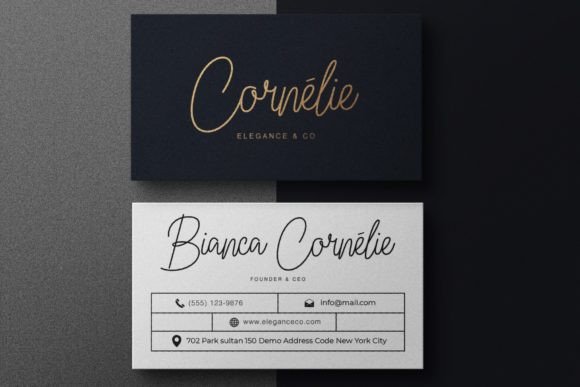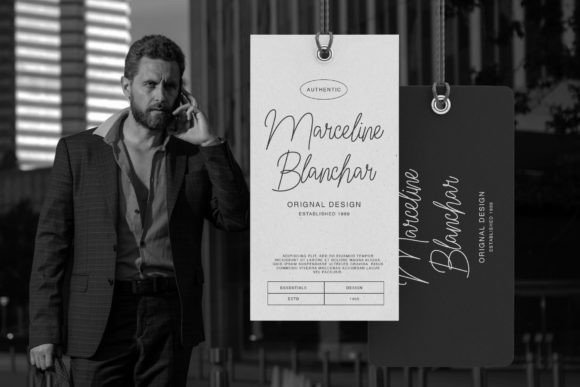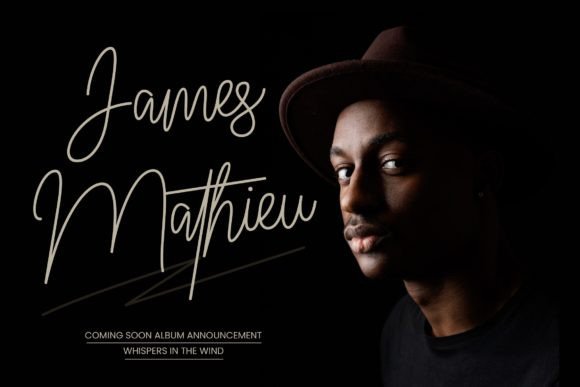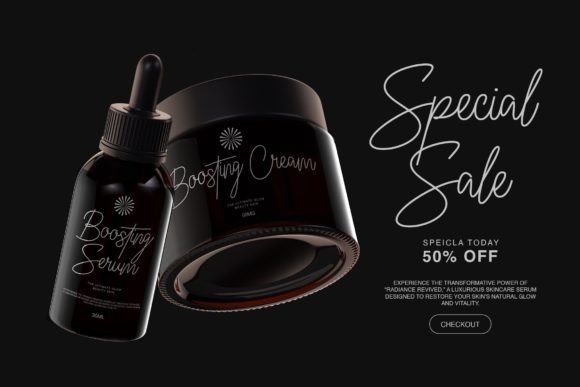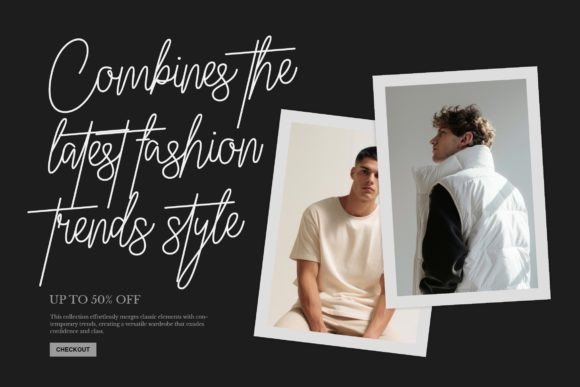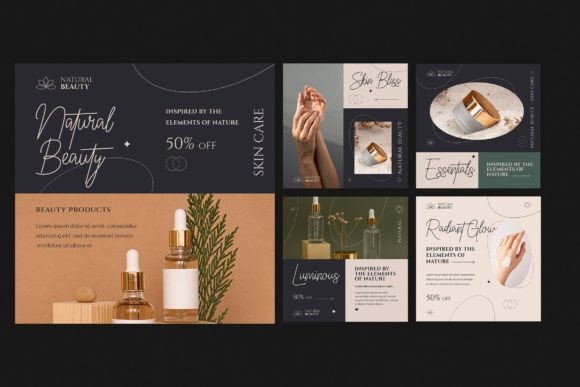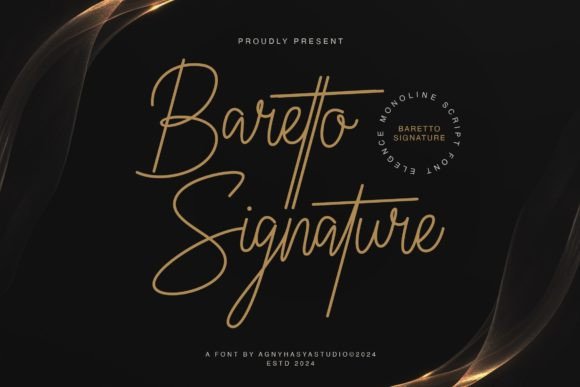
Introducing Baretto Signature: Elevate Your Designs with Elegant Monoline Script
In the world of design, fonts play a pivotal role in conveying messages, evoking emotions, and creating lasting impressions. For designers and crafters seeking a typeface that exudes elegance, versatility, and a touch of personal warmth, Baretto Signature emerges as an exceptional choice. This monoline-style script font is meticulously crafted to bring a natural and elegant movement to your projects, making it an ideal companion for a wide array of design needs.
The Essence of Baretto Signature
Baretto Signature is not just a font; it’s a design statement. Its monoline-style script offers a fluidity and continuity that is both visually appealing and highly legible. This elegant movement ensures that your designs stand out with a refined sophistication, perfect for projects that demand a touch of class and personality.
One of the standout features of Baretto Signature is its incredible versatility. This font is not confined to a specific genre or industry; rather, it is designed to adapt and excel across various applications. Whether you’re working on:
- Logos and Branding: Create memorable and sophisticated brand identities.
- Art Quotes and Typography: Add a personal touch to your artistic expressions.
- Wedding Designs: Elevate wedding stationery, invites, and decor with elegance.
- Social Media Posts: Stand out on social media platforms with stylish and engaging content.
- Advertising and Marketing: Capture attention with refined and professional advertisements.
- Product Packaging and Designs: Enhance your product’s visual appeal and brand storytelling.
- Labels and Photography: Add a touch of sophistication to your product labels and photographic works.
- Watermarks: Protect your work with an elegant and understated watermark.
- Invitations: Create stunning invitations for any occasion.
- Beauty and Fashion Designs: Perfect for designers in the beauty and fashion industries seeking a stylish edge.
- Stationery: Bring a touch of elegance to your letters, notes, and office stationery.
This wide range of applications makes Baretto Signature a valuable asset in any designer’s toolkit, offering the flexibility to create compelling designs across different mediums and industries.
Crafting with Baretto Signature
For crafters and DIY enthusiasts, Baretto Signature offers endless possibilities. Use it to:
- Design personalized gifts and stationery.
- Create custom signage and wall art.
- Elegantly label your homemade products.
- Enhance your scrapbooking and journaling projects.
The font’s friendly and approachable vibe makes it perfect for projects that require a personal touch, allowing crafters to add a professional and stylish flair to their handmade creations.
Why Choose Baretto Signature?
Baretto Signature stands out in the realm of script fonts due to its unique blend of elegance, readability, and versatility. Here are a few reasons why designers and crafters are gravitating towards this beautiful typeface:
- Elegant and Refined: Adds a touch of sophistication to any project.
- Highly Versatile: Suitable for a wide range of design applications.
- Easy to Read: Ensures your message is conveyed clearly and effectively.
- Unique Style: Helps your designs stand out in a crowded marketplace.
Baretto Signature is more than just a monoline-style script font; it’s a creative partner that can elevate your designs to new heights of elegance and sophistication. Its versatility, combined with its elegant movement, makes it an indispensable tool for designers and crafters looking to add a personal and professional touch to their projects. Whether you’re working on a commercial design or a personal craft project, Baretto Signature invites you to explore new possibilities and create stunning visual experiences.